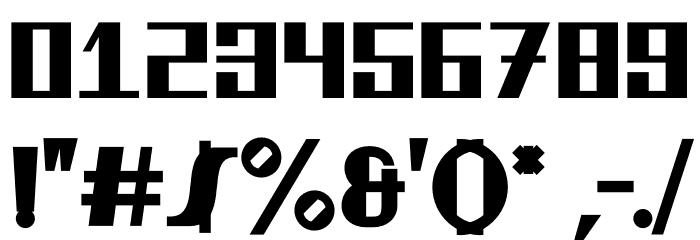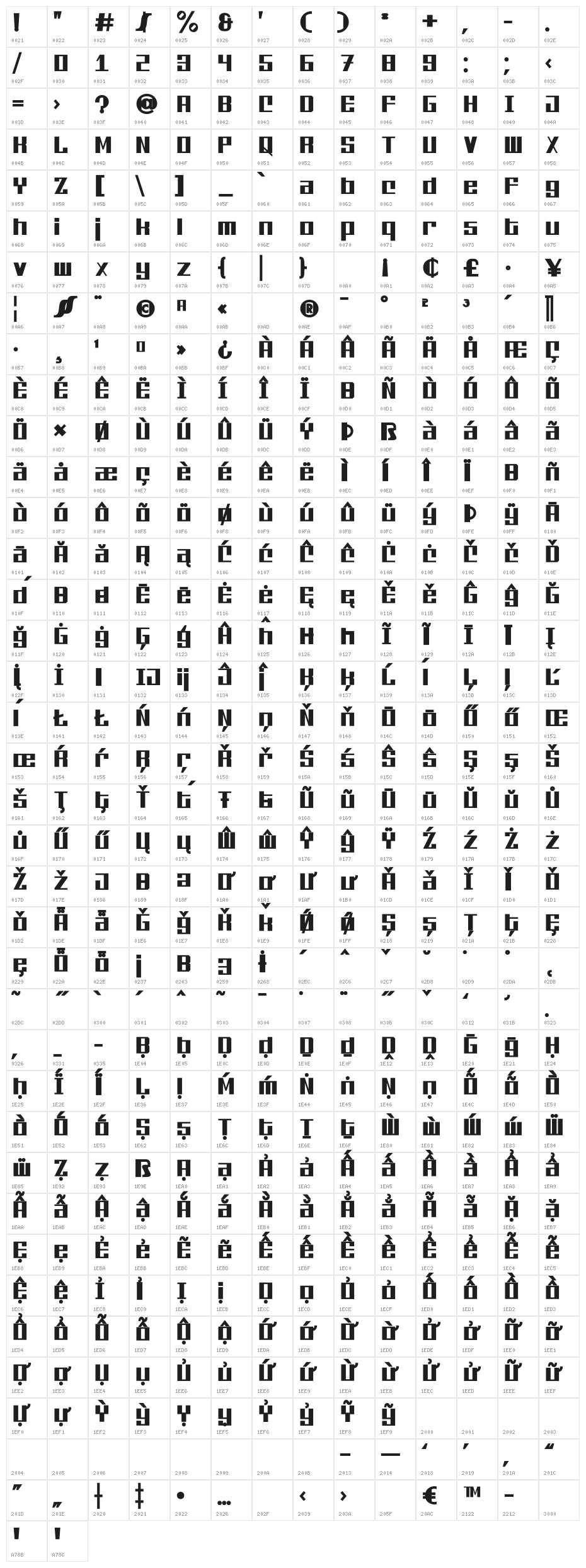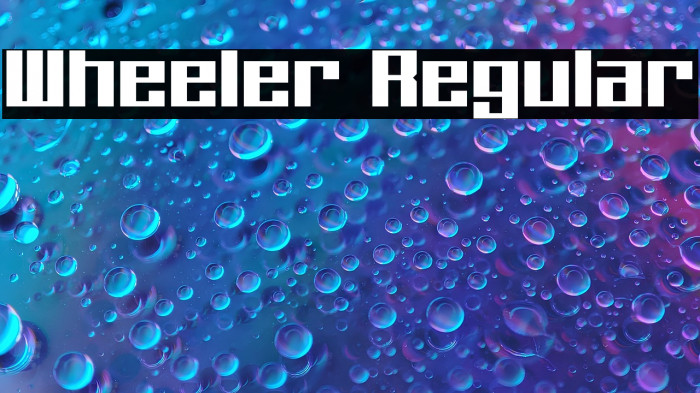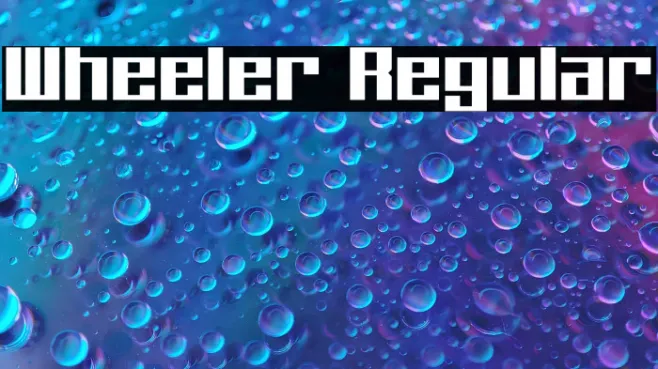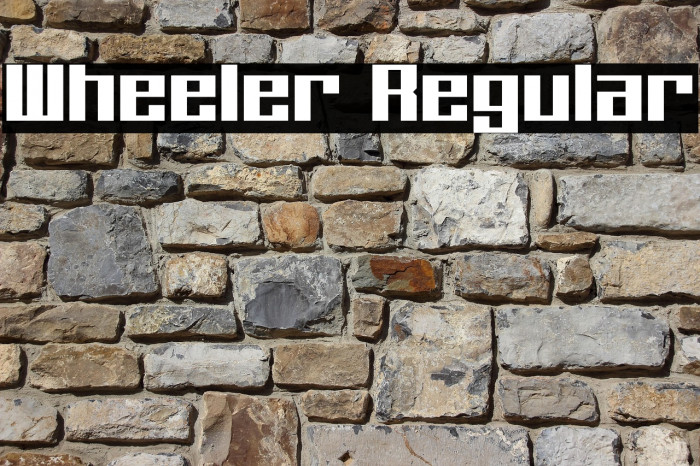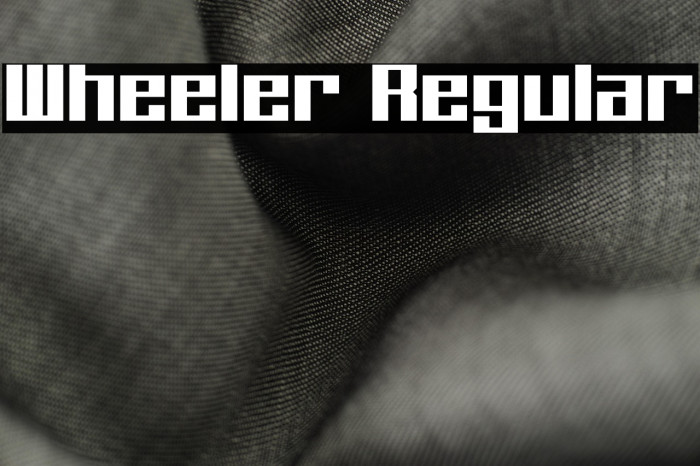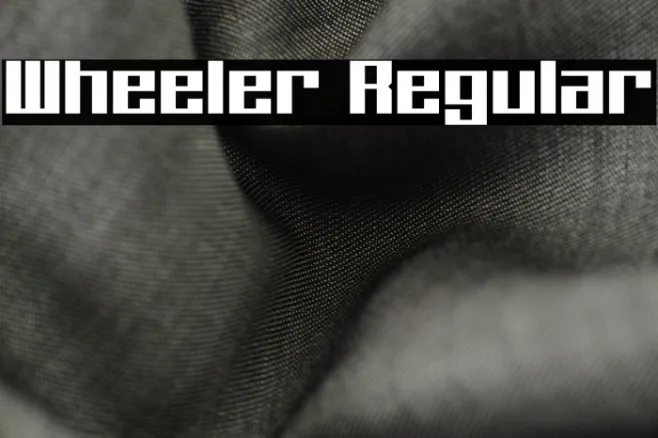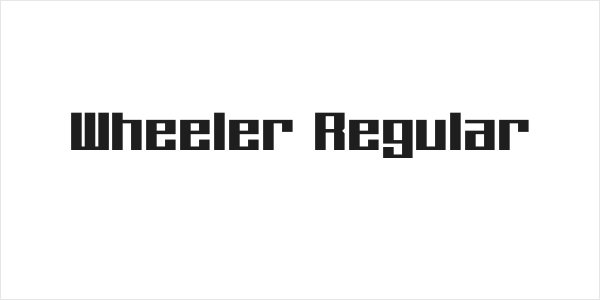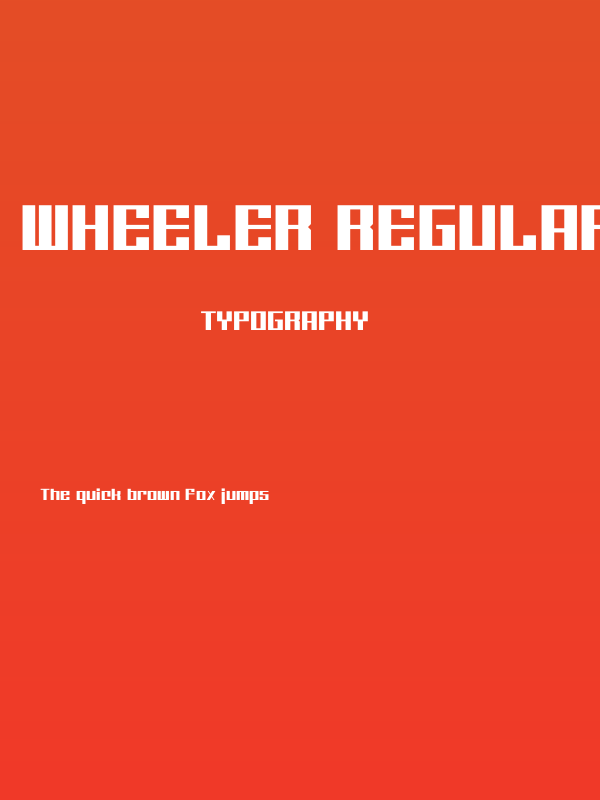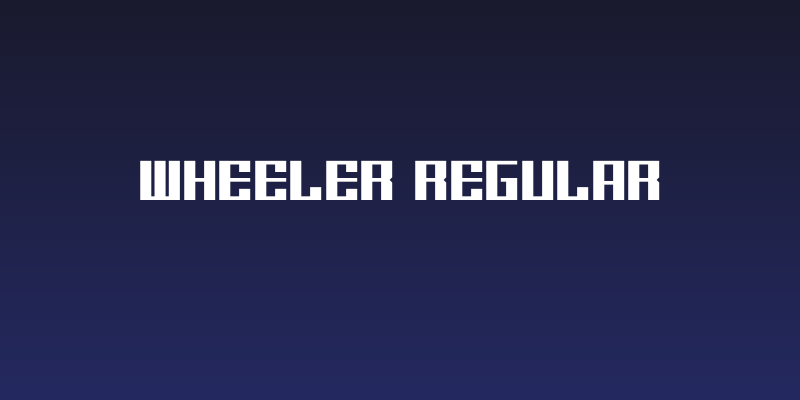
Wheeler Regular Font
Wheeler Regular Description
This font features a bold, geometric design with strong, angular lines and a modern aesthetic. The uppercase letters are particularly striking, with a blocky, almost industrial feel that suggests strength and stability. The lowercase letters maintain this boldness while offering a slightly more streamlined appearance. Numbers and special characters are consistent with the overall design, providing a cohesive look across all characters. The font's style is highly distinctive, making it ideal for projects that require a strong visual impact.